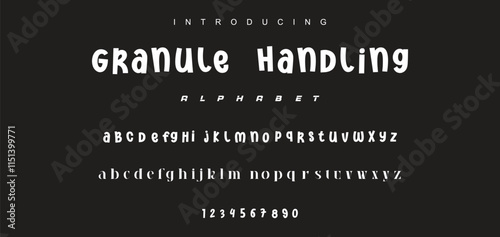
Beautiful Colorful Kids logo Fonts, Creative Typography Fonts for Children's Books, Educational Materials, and Fun Projects Colorful kids alphabet design template. Cartoonish Bubbly Fonts for Kids